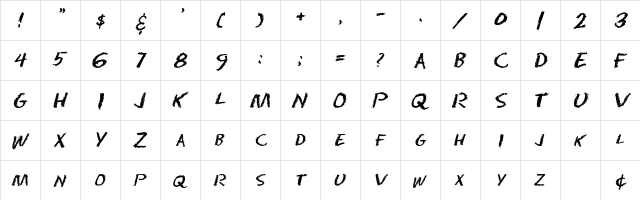
BlackBoardDisplaySCapsSSK Italic
Design Context for BlackBoardDisplaySCapsSSK Typeface
BlackBoardDisplaySCapsSSK is built around its visual character rather than neutral utility — its distinctive forms are designed to make an impression at display sizes. The slanted form adds forward momentum and visual energy.
Font Pairing: Pair with a clean neutral sans-serif for body copy to let BlackBoardDisplaySCapsSSK's character lead without overwhelming the composition.
Pro Tip: Treat BlackBoardDisplaySCapsSSK as the centrepiece of your typographic hierarchy. One strong heading set in a decorative face can carry an entire layout.